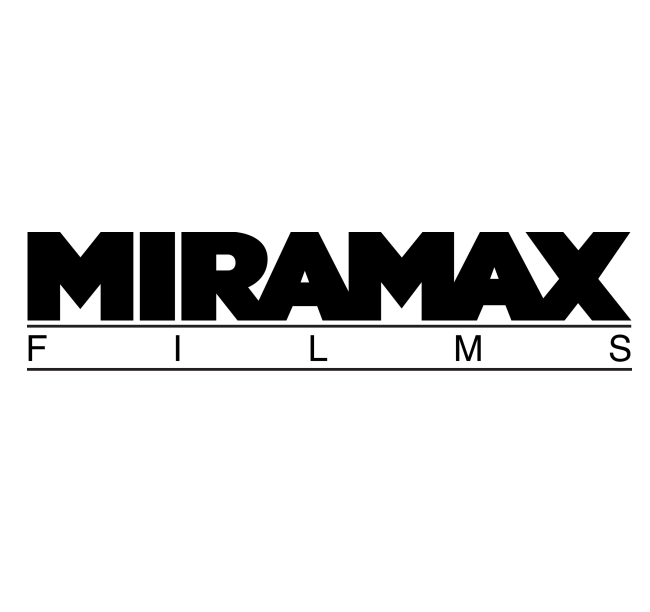
Miramax Films Font
EntertainmentMiramax is an American entertainment company that was founded in 1979. It was a leading independent film distributor known for producing and distributing critically acclaimed films, such as Pulp Fiction, Shakespeare in Love, and Good Will Hunting.